Top Arabic Fonts for Ramadan and Eid Design
The holy month of Ramadan and the joyous celebration of Eid al-Fitr are two of the most important occasions of the year for Muslims worldwide. These special times offer valuable opportunities for connection, greetings, promotions, and themed designs.
1. Rahrovan Font (1 weight)
Inspired by Thuluth calligraphy, the Rahrovan font creates a spiritual and calming atmosphere that perfectly matches the spirit of Ramadan. It is ideal for designing religious posters, Eid greeting banners, and meaningful content, adding a sense of elegance and authenticity to your projects.
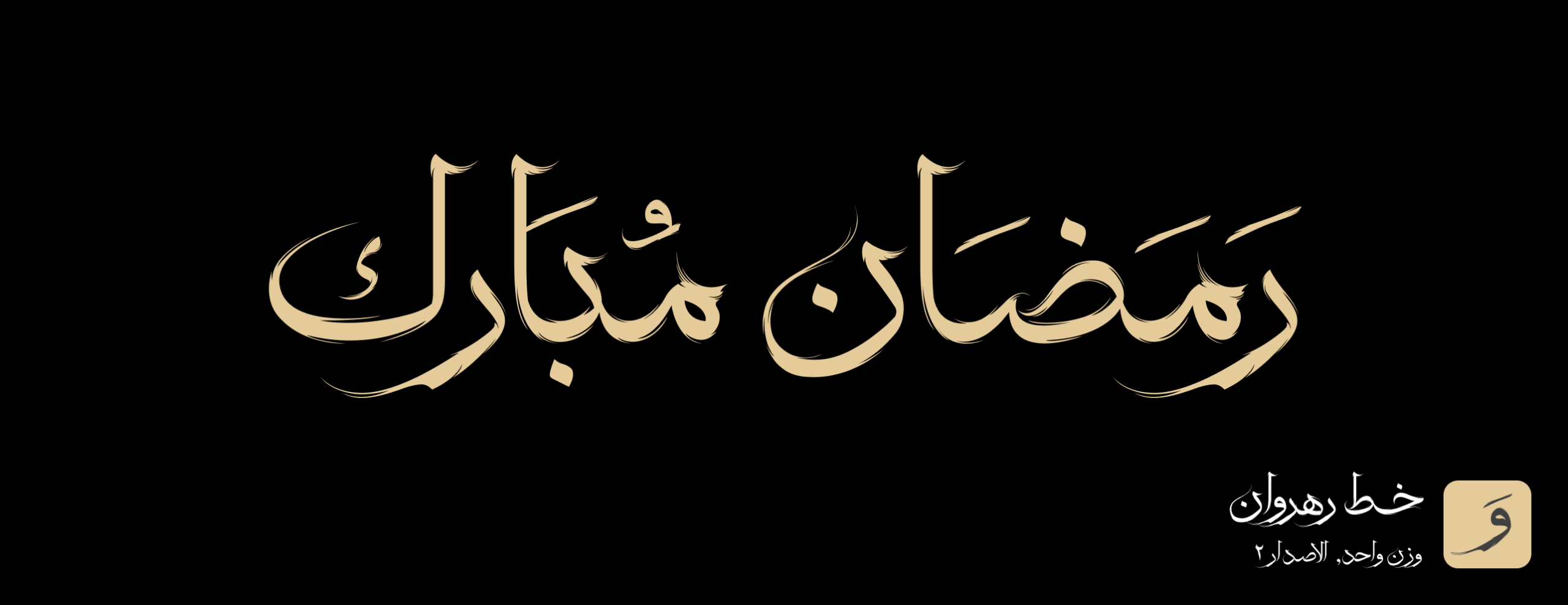
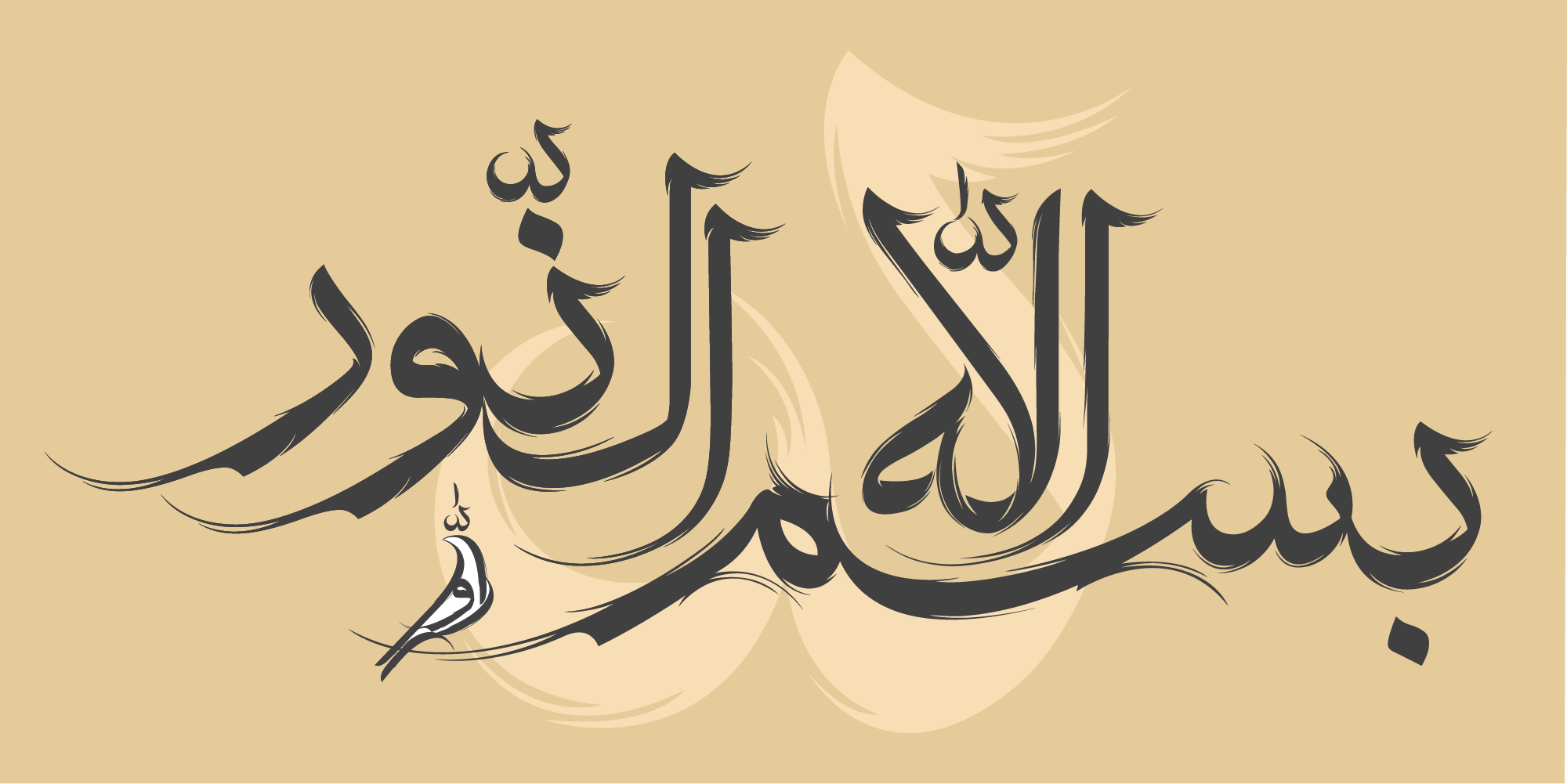
2. Dang Font (1 weight, 2 styles)
With its two styles—elongated and compact—Dang is a versatile choice for Ramadan and Eid designs. The elongated style is perfect for headings, Quranic verses, and greeting messages, while the shorter style works well for dense layouts, announcements, and short texts.
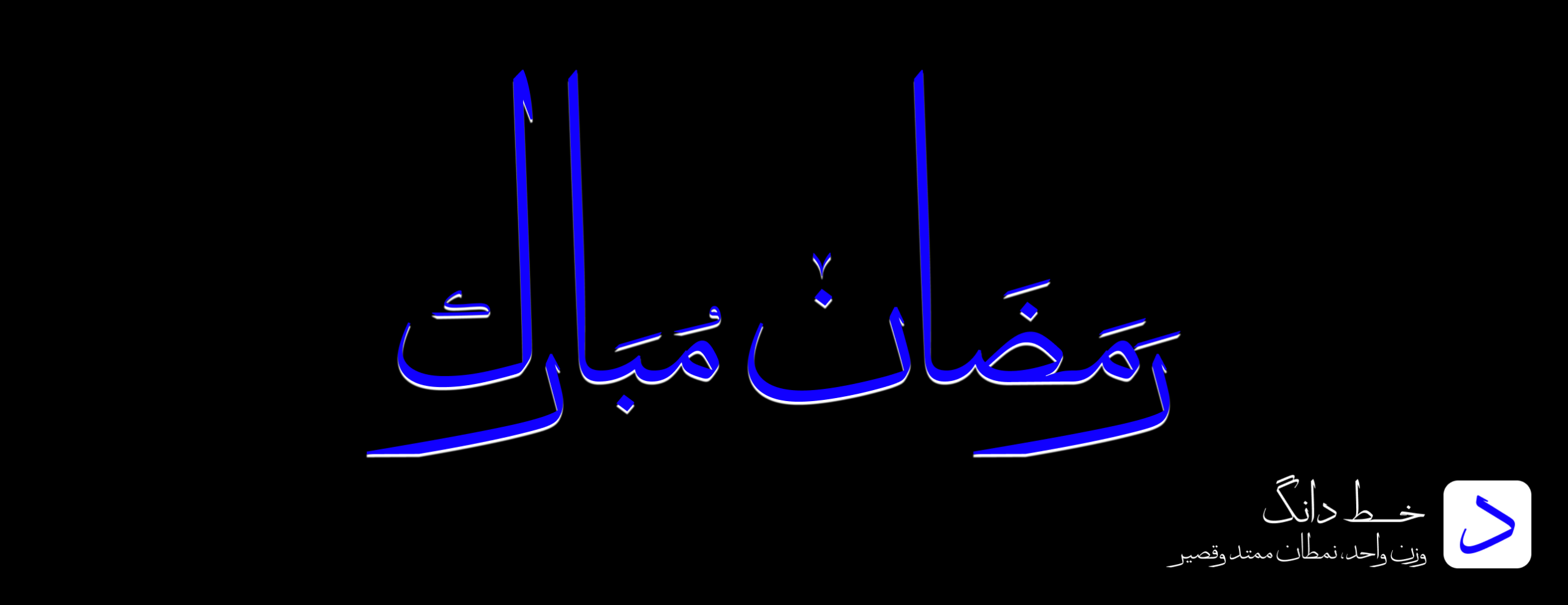
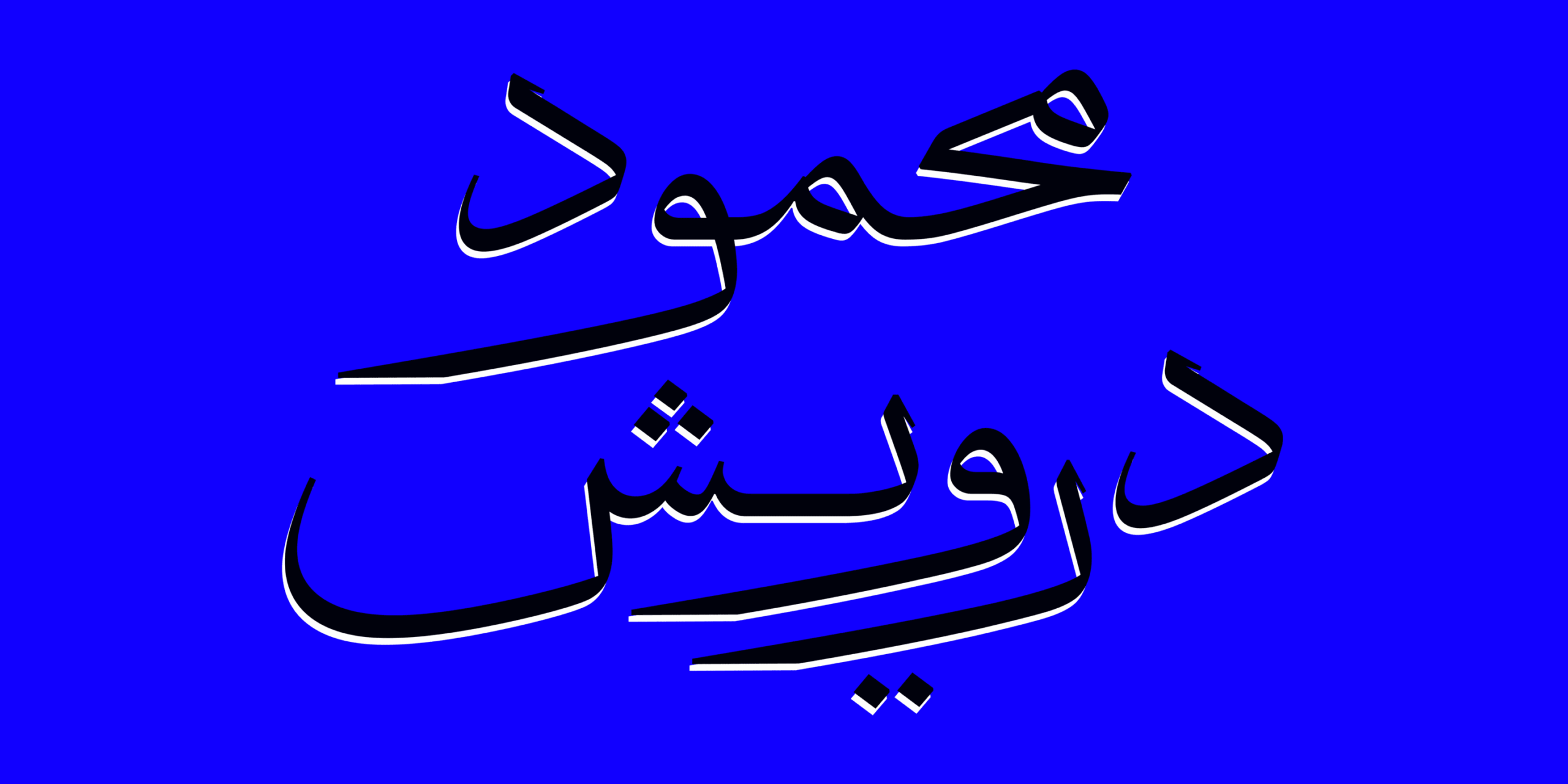
3. Atiq Font (3 weights)
By combining elements of Thuluth and Naskh scripts, Atiq conveys a strong sense of Islamic tradition and authenticity. Its multiple weights and extensive ligature set make it especially valuable for Quranic content, supplications, religious posters, and Ramadan-focused publications.
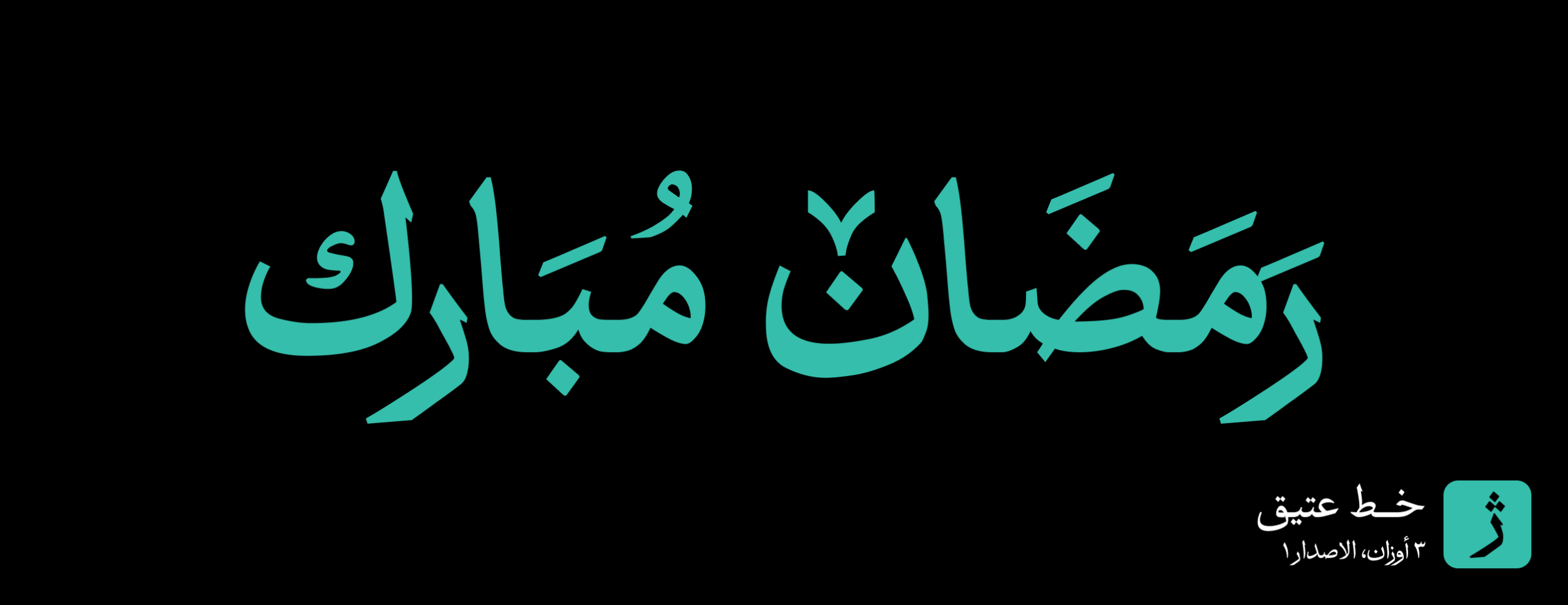
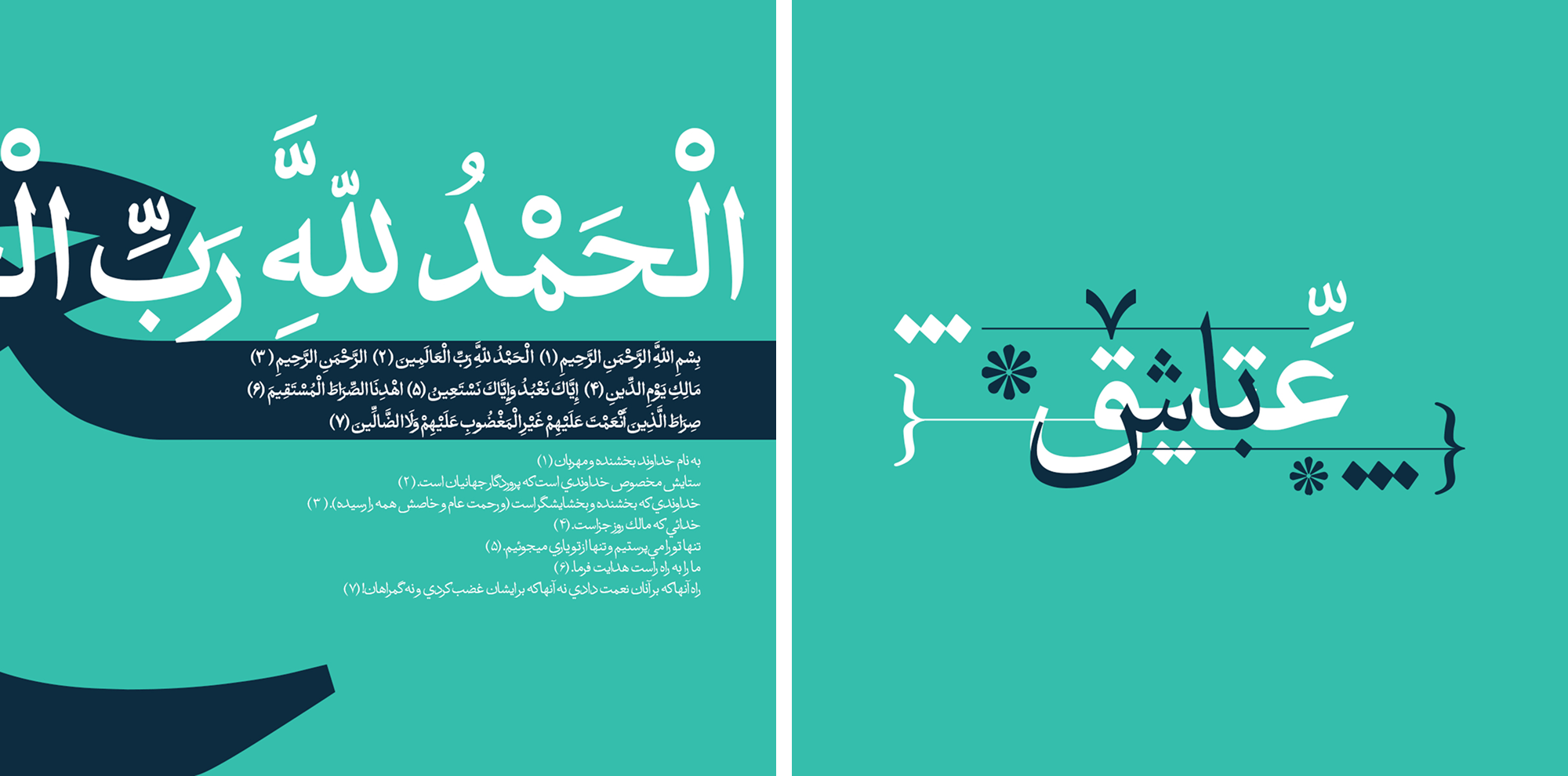
4. Hasti Font (1 weight, 4 styles)
Blending Naskh and Nastaliq, Hasti creates a beautiful balance between readability and artistic elegance. It is an excellent choice for social media posts, Eid greeting banners, Ramadan product packaging, and cultural promotions.
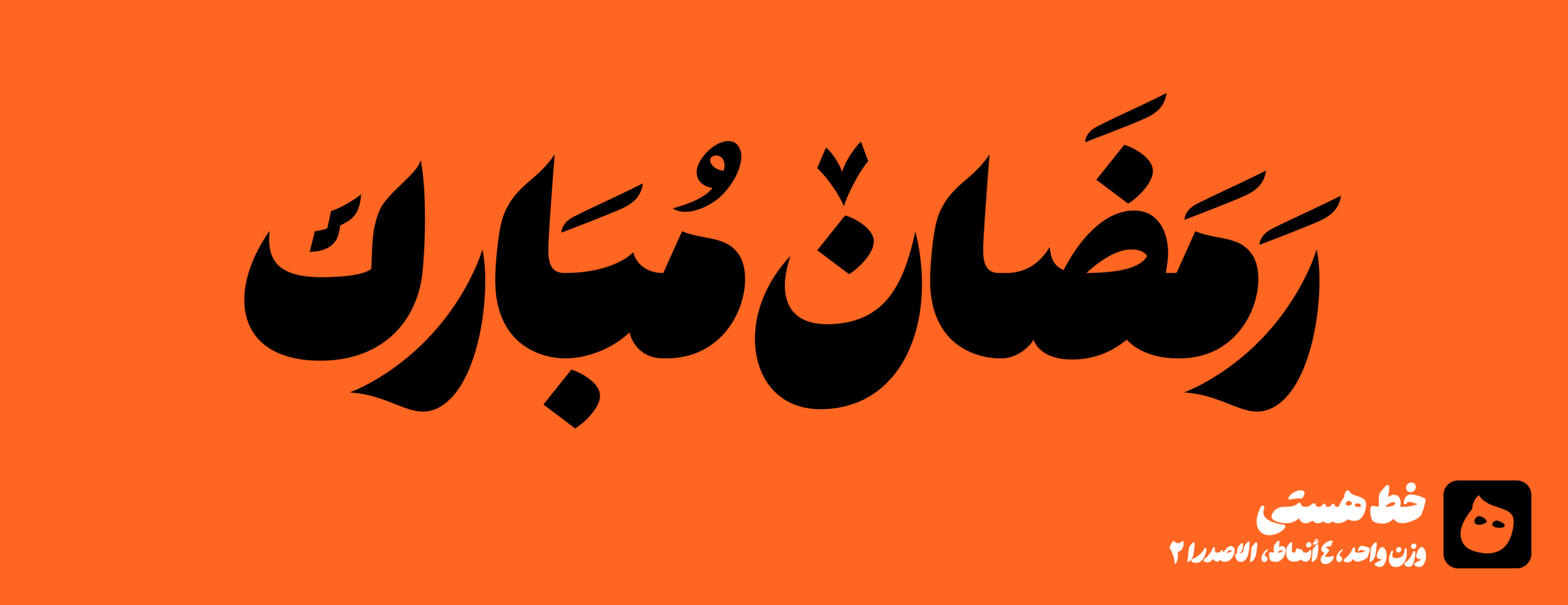
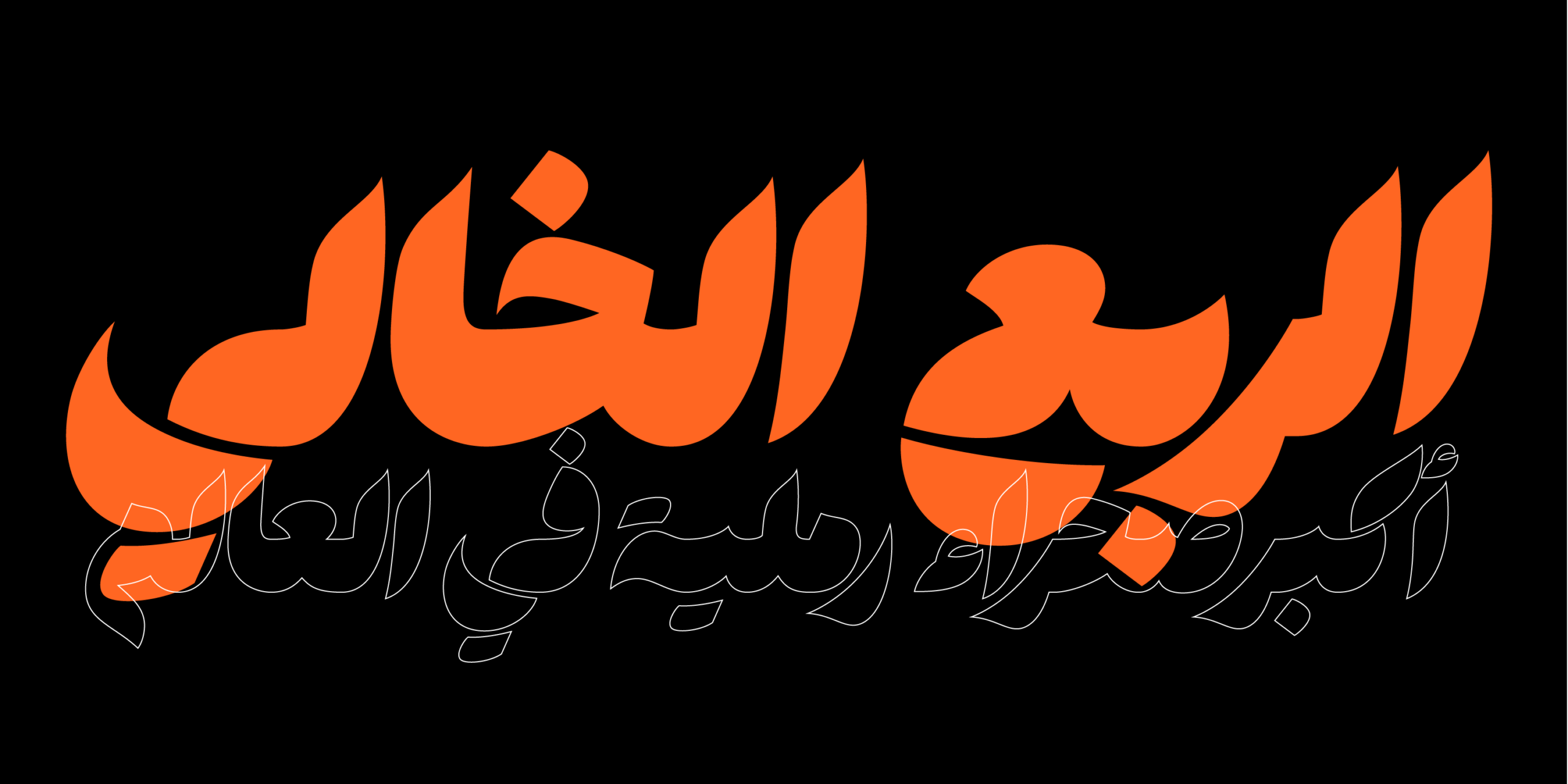
5. Darvish Font (8 weights, 3 styles, Variable)
Designed with a strong focus on readability and visual harmony, Darvish is ideal Arabic khatt for longer religious texts during Ramadan, such as brochures, prayer booklets, and spiritual magazines. It delivers meaningful messages in a smooth and pleasant reading experience.
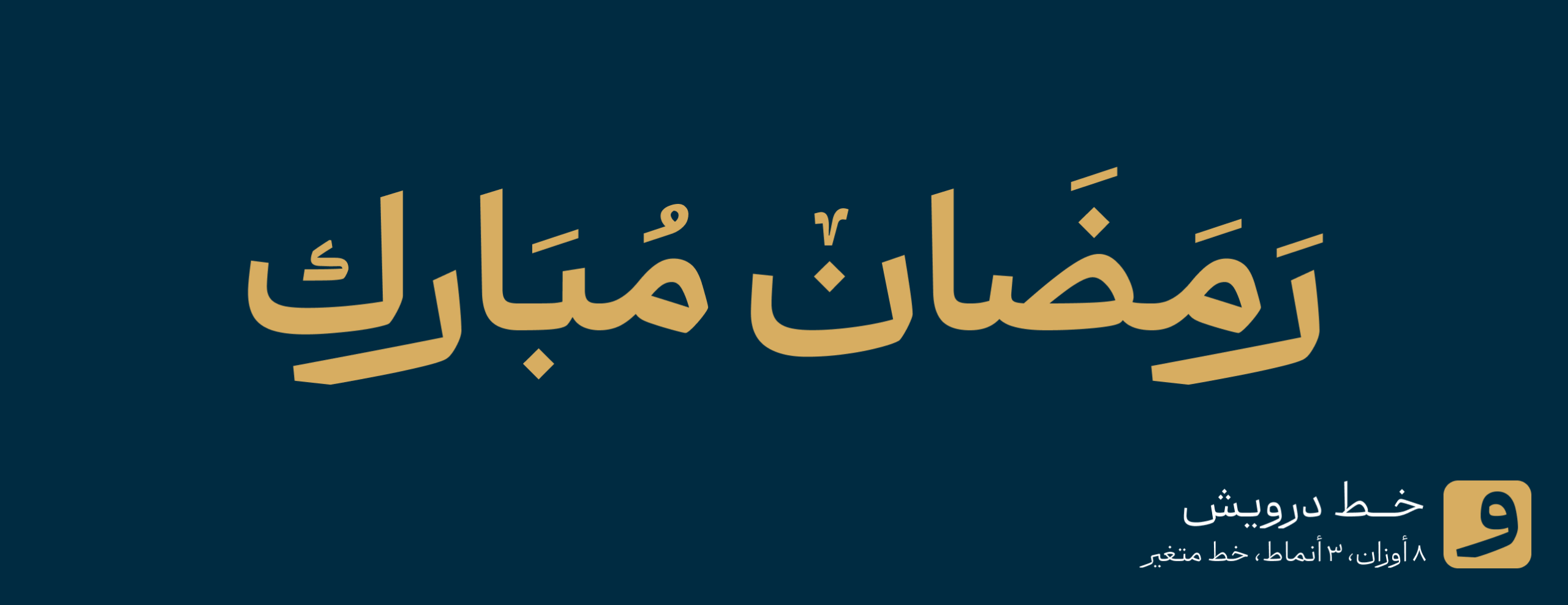
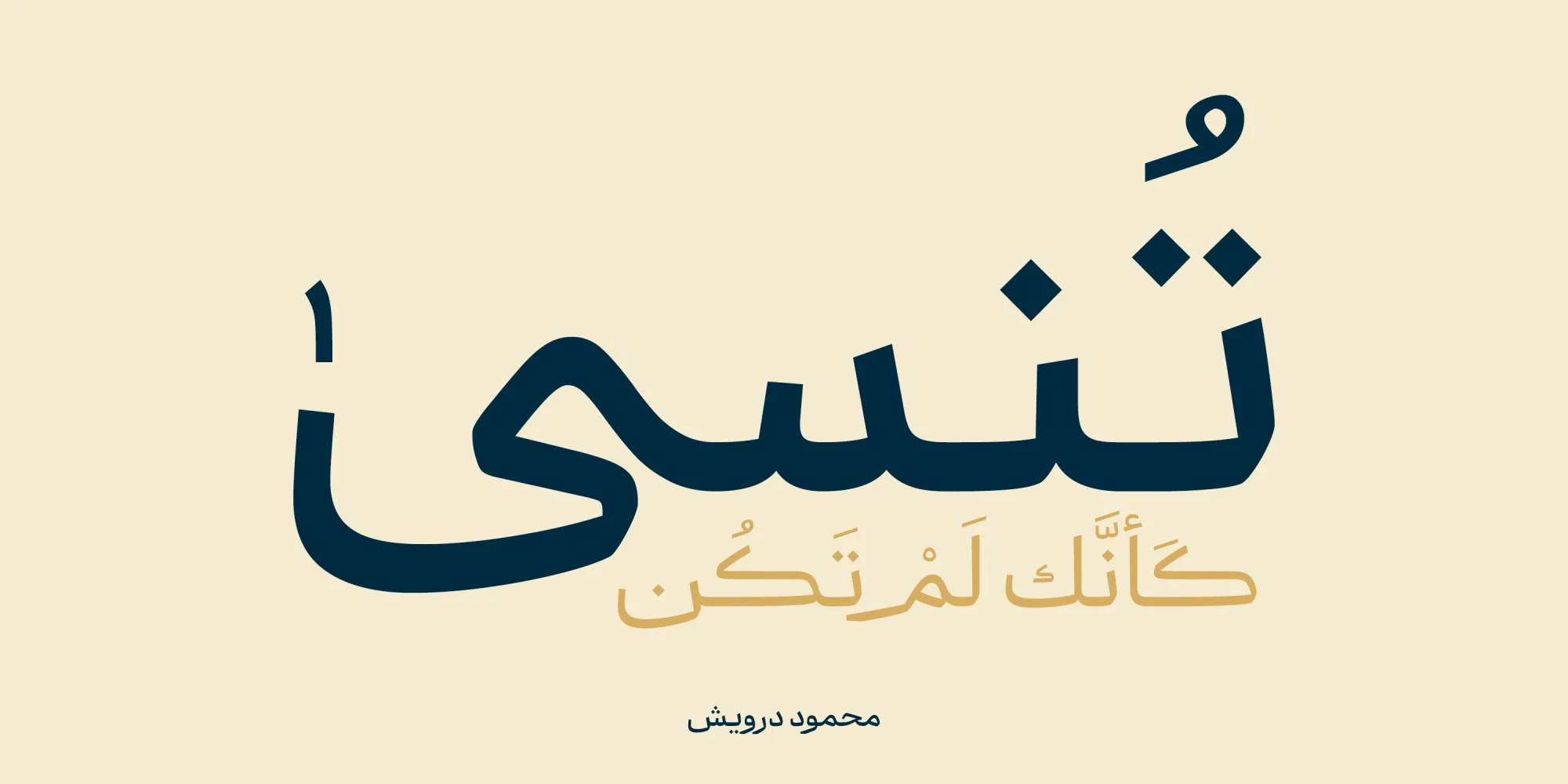
8. Hafez Font (1 weight)
Hafez font, with high readability and precise alignment of letters on the baseline, is an ideal choice for designing Ramadan posters, religious banners, Quranic content, book covers, social media, and both print and digital projects. This font conveys a sense of dignity and spirituality, enabling professional and impactful presentation of religious works.